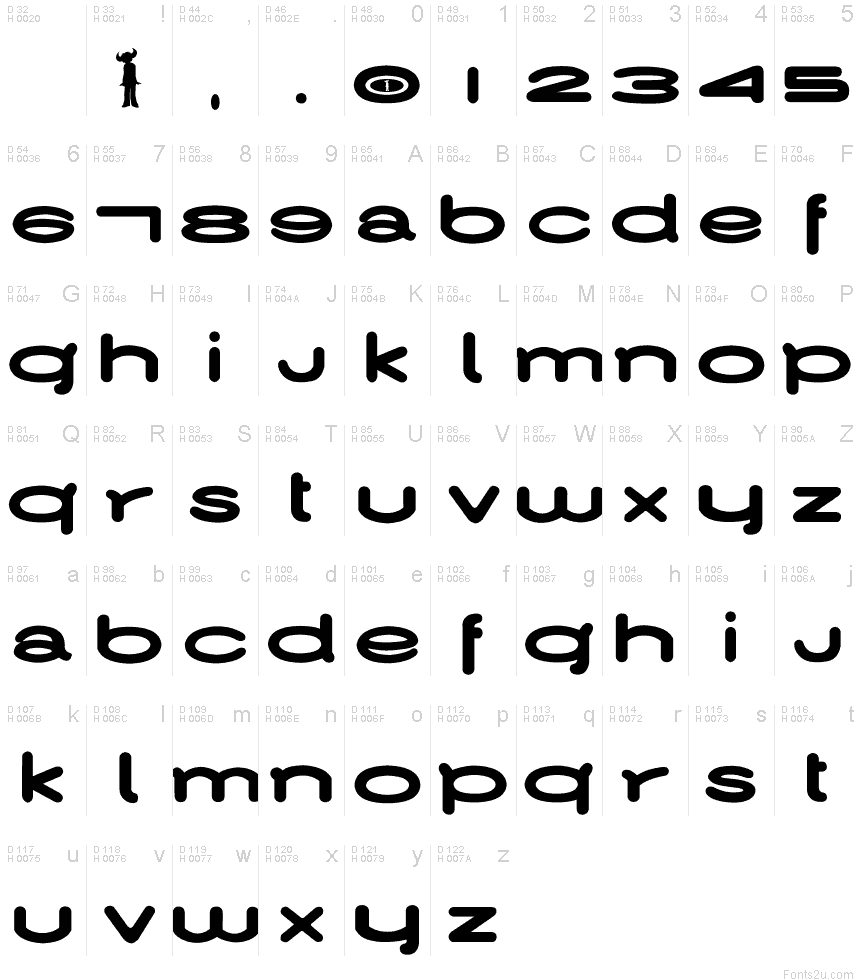
! Jamiroquai !
Jamiroquai font by Degórski is a free retro display typeface with a smooth, rubbery groove that feels straight off a late‑90s dancefloor. Its chunky, rounded strokes link together in an almost liquid rhythm, giving words a bouncy, kinetic energy without losing legibility. The letters feel soft and inflated, like vinyl shapes pressed into ink, so even a single word looks like a logo.
Using Jamiroquai, headlines pick up an instant funk and future‑pop attitude that shines on music posters, album covers, club flyers, streetwear branding, packaging, and social graphics. This free font thrives at large sizes with slightly loosened spacing, where its curvy silhouettes can breathe. For longer supporting text, pair it with a simple geometric sans to keep the focus on Jamiroquai’s playful, flowing forms.